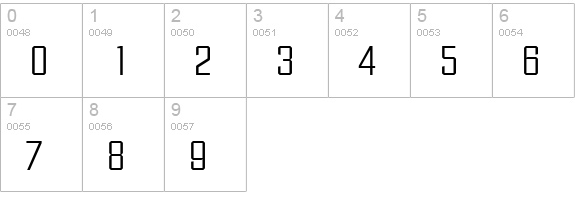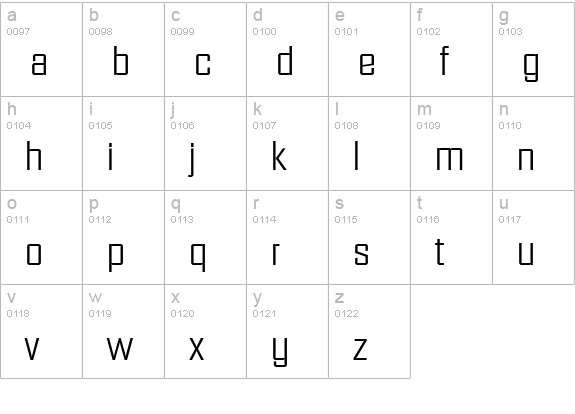
DiamanteSerial-Light-Regular is a refined, elegant variant in the DiamanteSerial typeface family \xE2\x80\x94 well suited to elegant body text, refined sub-headings, and luxury branding.
DiamanteSerial-Light-Regular font is a sleek and modern typeface that exudes elegance and sophistication. With its clean lines and subtle curves, this font is perfect for a wide range of design projects, from branding to editorial design. The light weight of the font adds a touch of refinement, making it ideal for conveying a sense of sophistication in any design. Best of all, DiamanteSerial-Light-Regular font is available for free download at FontsMarket.com. You can easily access this stunning font and elevate your projects with its timeless appeal. Whether you're creating a logo, designing a website, or crafting a print layout, DiamanteSerial-Light-Regular font is sure to make a lasting impression. Download it today and see for yourself the impact this font can have on your designs.